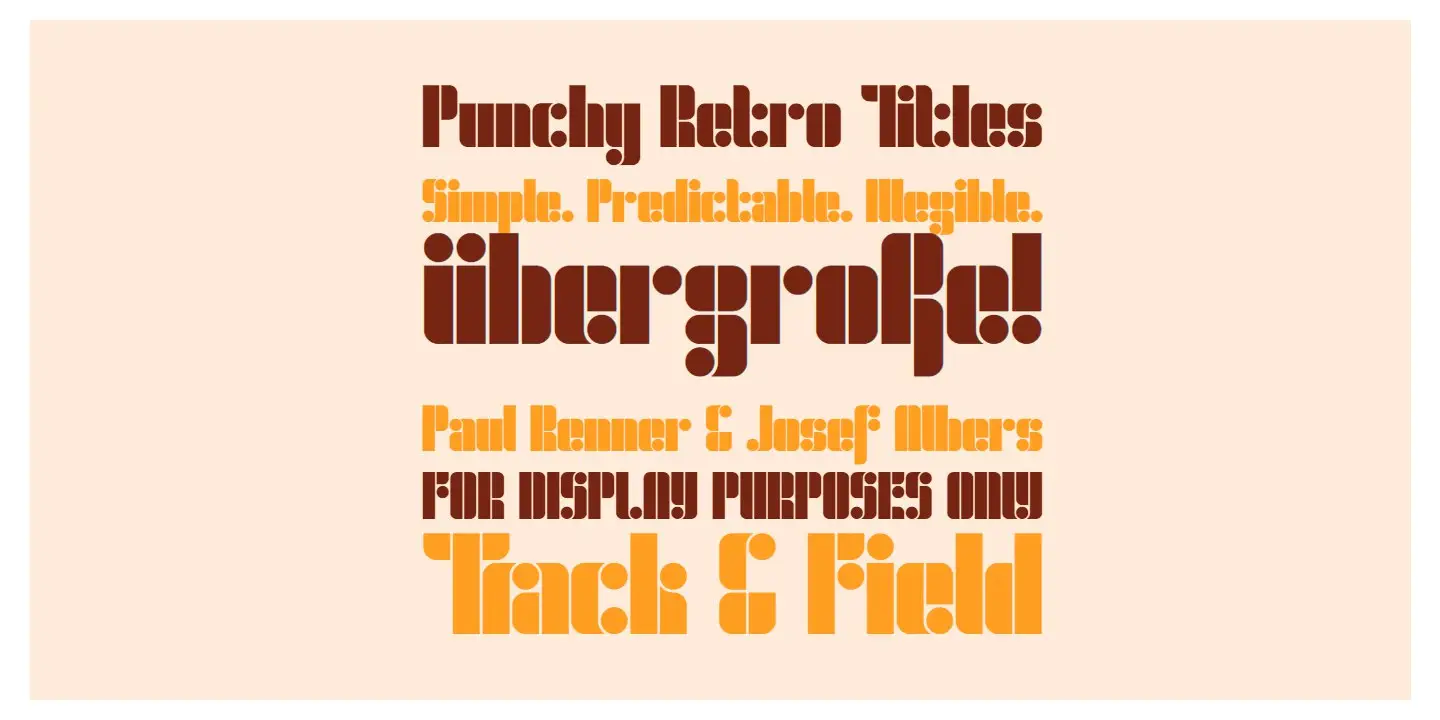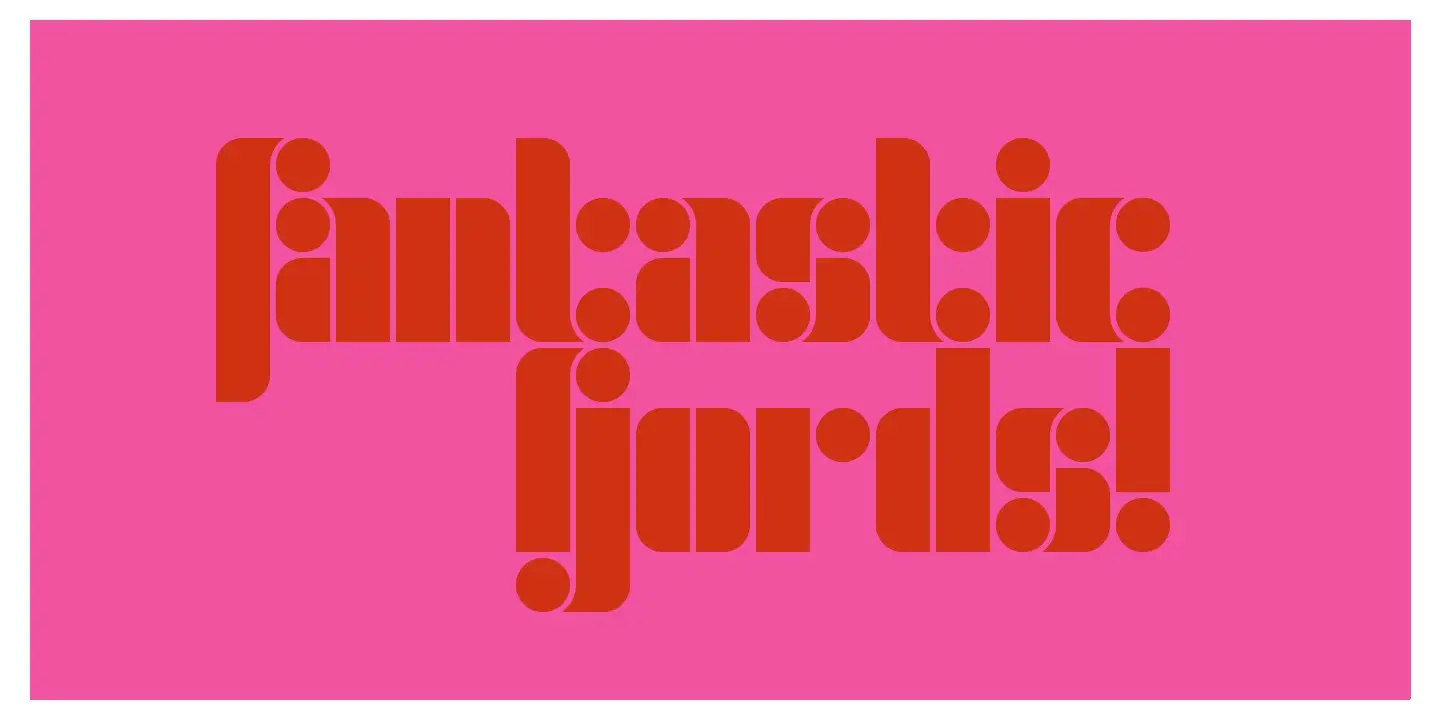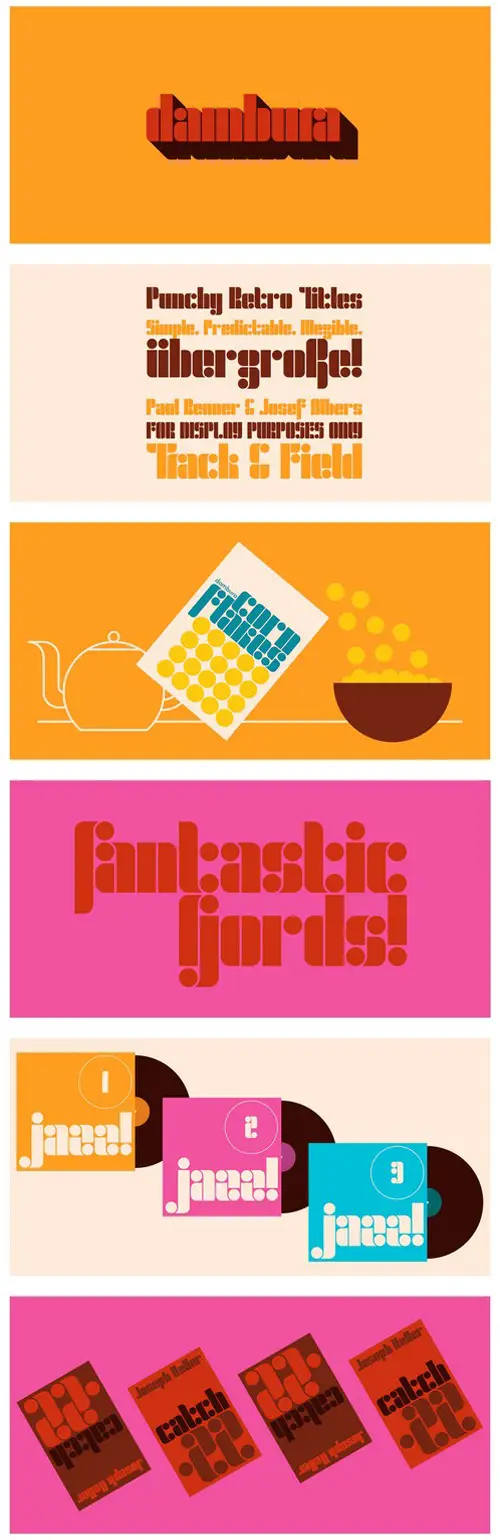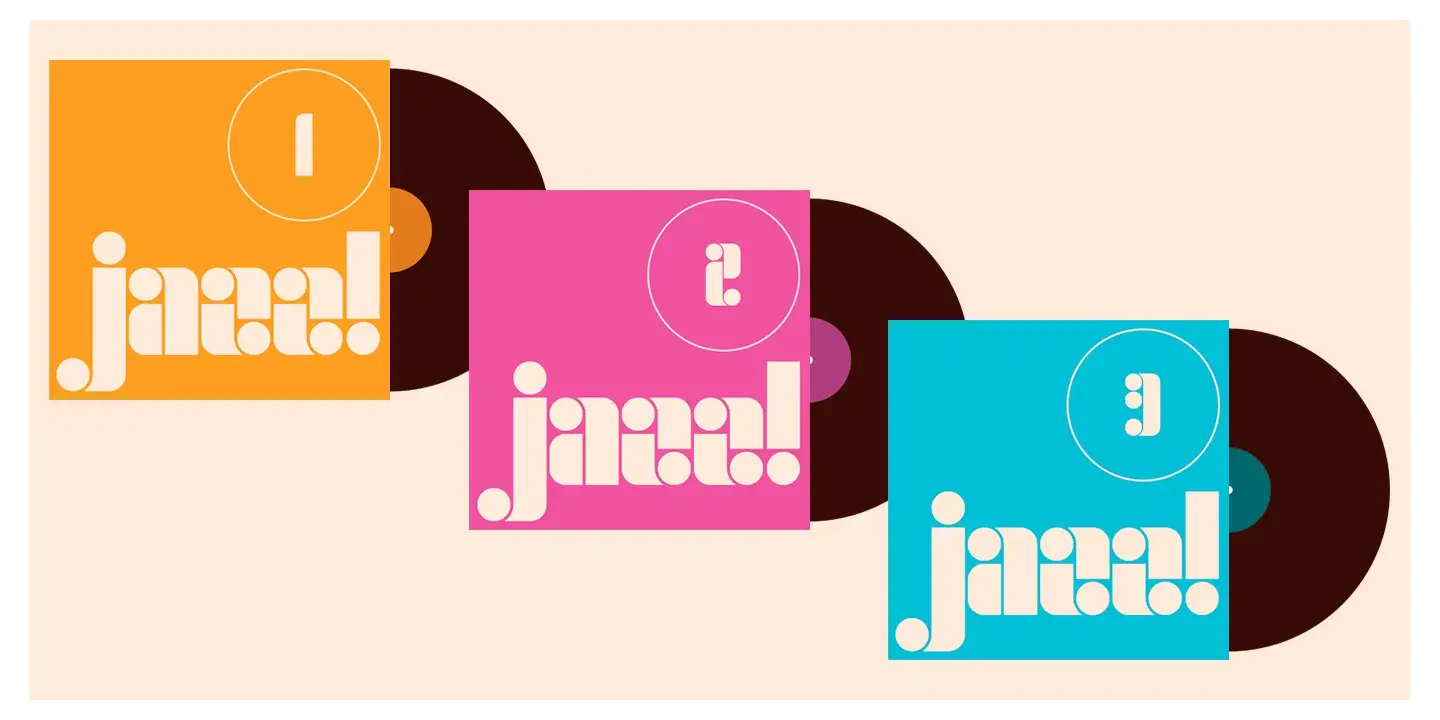
Dambura Font
The Dambura Font is a versatile typeface that combines elegance with modern design. Crafted with precision, this font features a unique blend of styles that make it suitable for various applications.
• Stylish uppercase and lowercase letters
• Stylized numerals and punctuation
This font is ideal for branding, logo design, web content, and print materials. Its unique characteristics can help create a memorable visual identity.